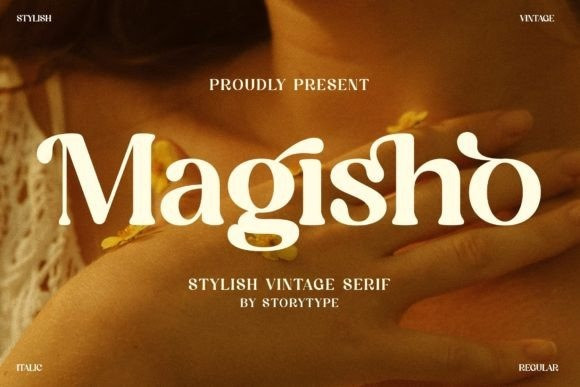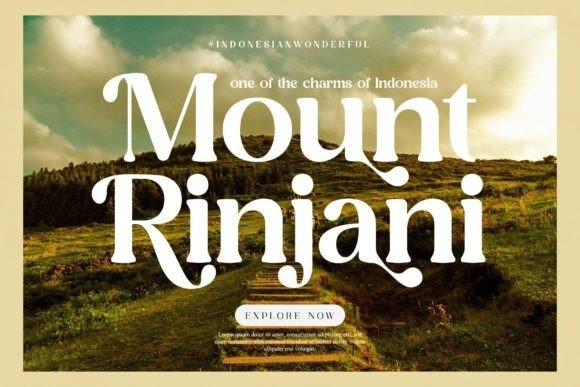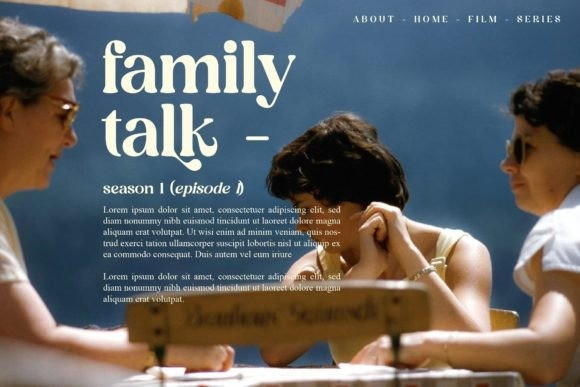
Magisho Font
Magisho is a distinct and classic serif font that has its own unique style & modern look.
This typeface is perfect for an elegant & luxury logo, book or movie title design, fashion brand, magazine, clothes, lettering, quotes, and so much more.